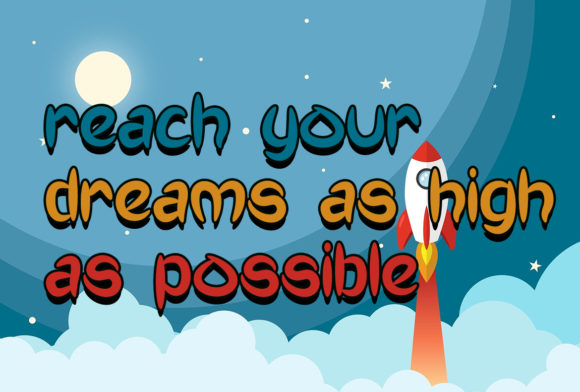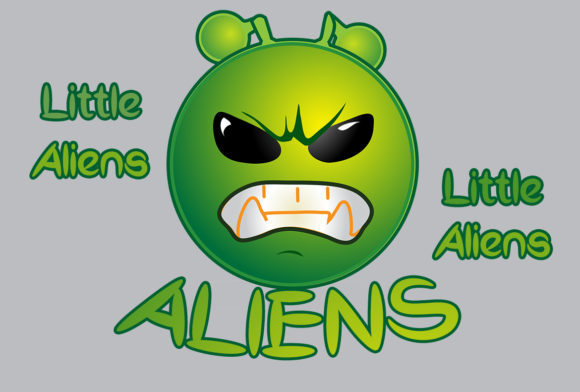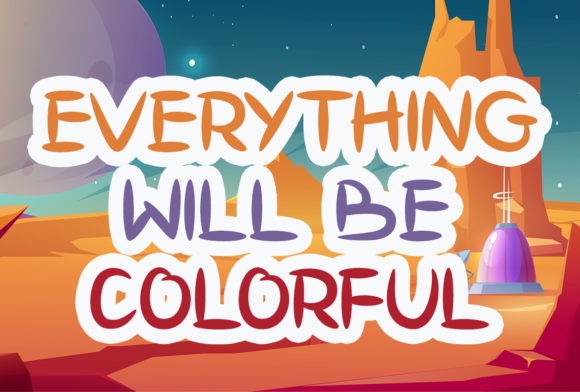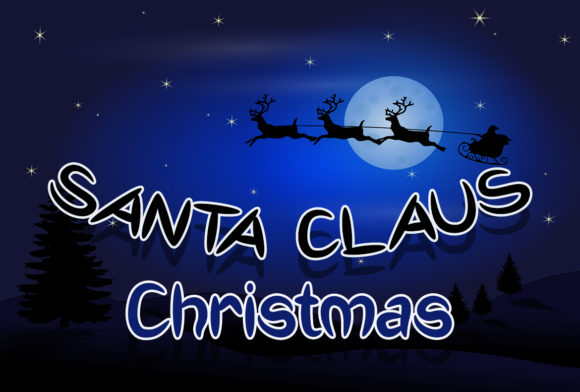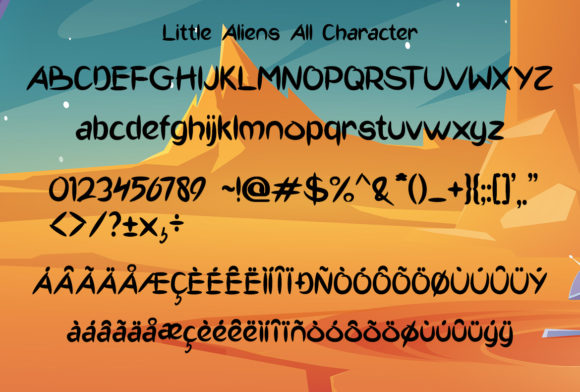
Introduction to Little Aliens Font Font
Fonts play a crucial role in design, and the Little Aliens Font font is a typeface that brings both character and versatility to any project. Whether you’re working on a branding project, a website, or a print design, the Little Aliens Font font offers a unique style that can elevate your work.
Little Aliens is a sweet and friendly display font.
Its natural and cute style makes it incredibly fitting to a large pool of designs This font is perfect for school and kids projects.
Key Features of Little Aliens Font Font
Why Choose Little Aliens Font Font?
The Little Aliens Font font is more than just a typeface – it’s a design tool that helps you communicate your message with style and clarity. Its unique character set and versatile design make it suitable for a wide range of applications, from elegant invitations to bold headlines.
With its carefully crafted letterforms and balanced proportions, the Little Aliens Font font ensures readability and visual appeal across all mediums.
What makes Little Aliens Font font special?
The Little Aliens Font font stands out with its unique design, exceptional readability, and versatility across various design applications.